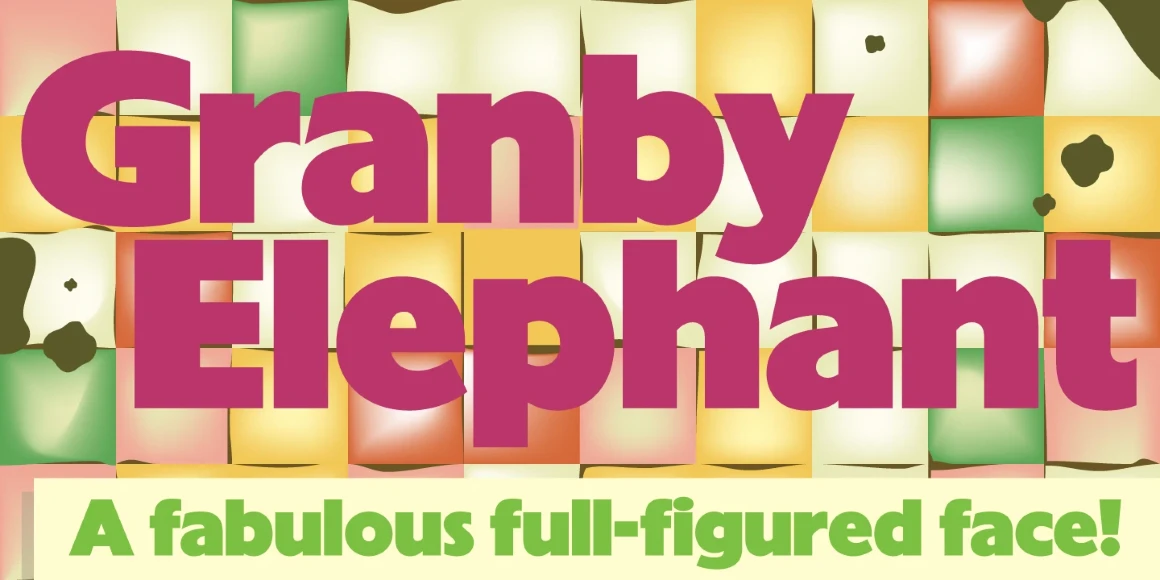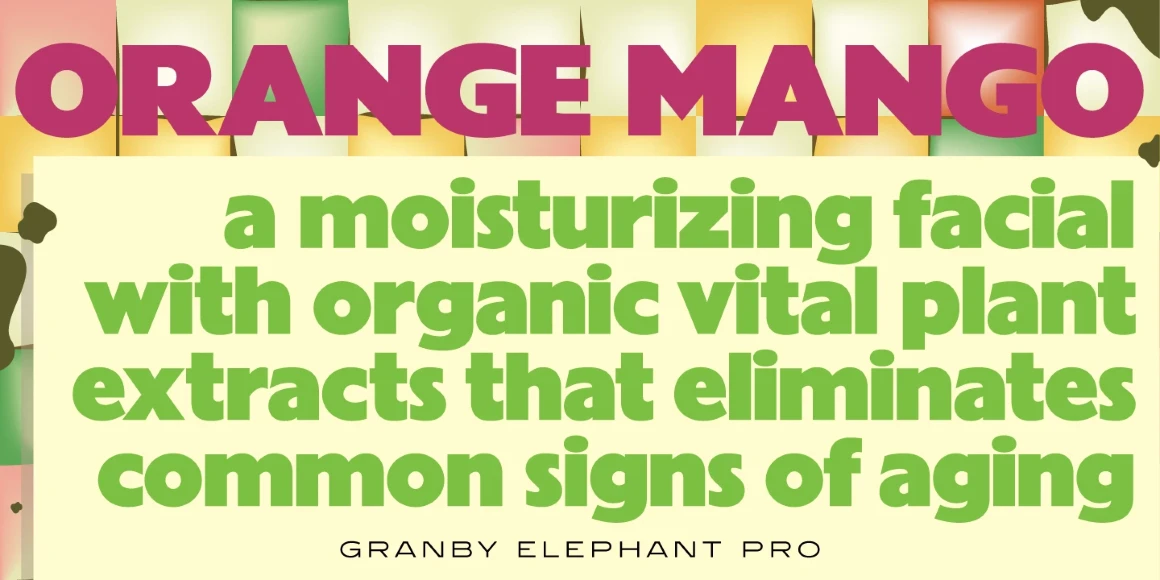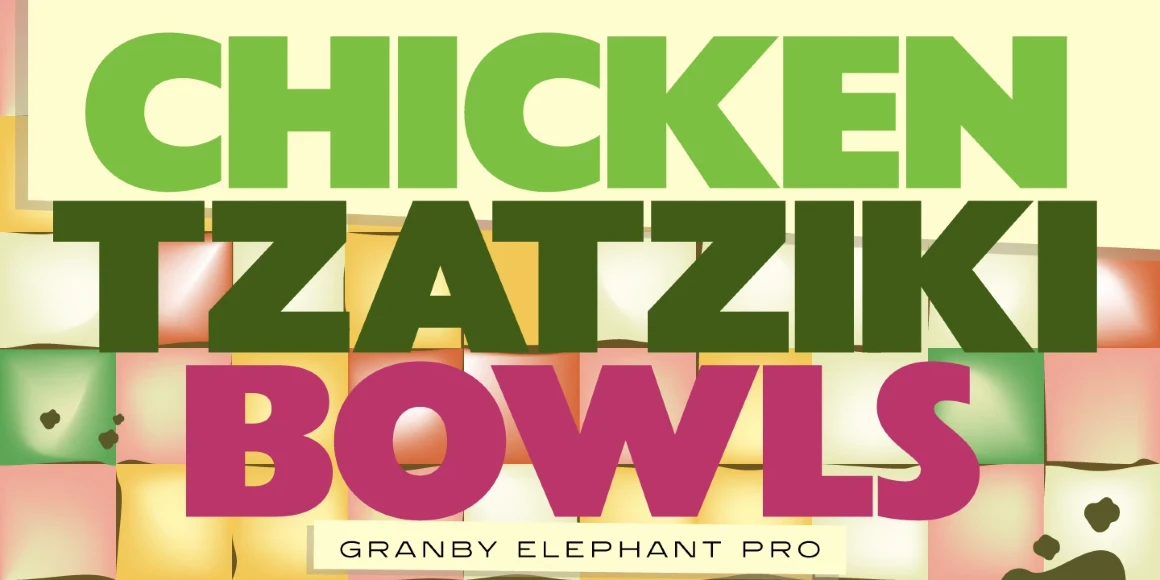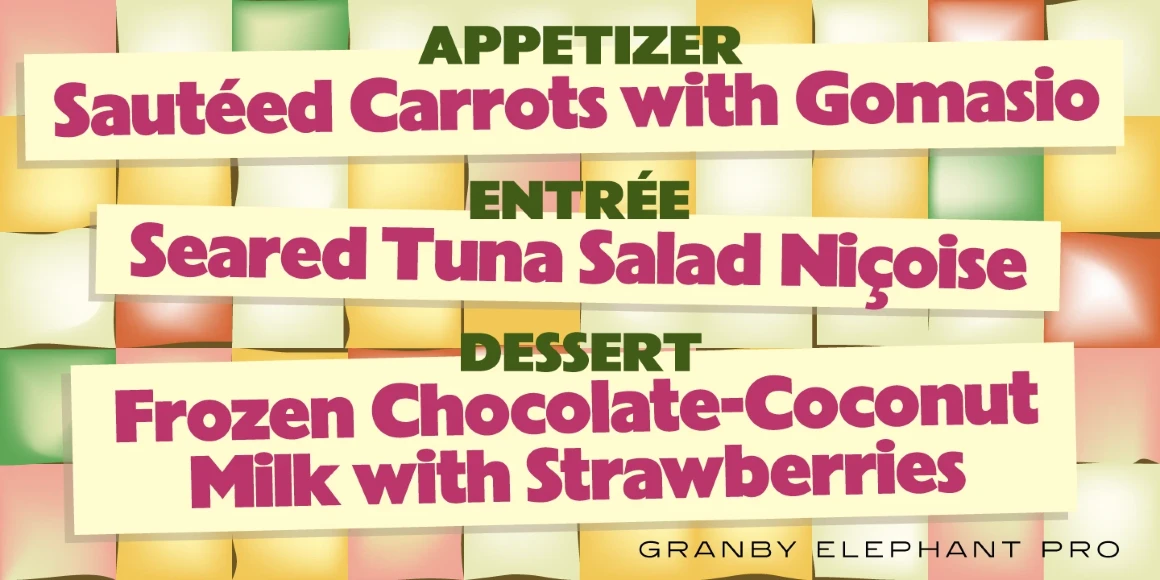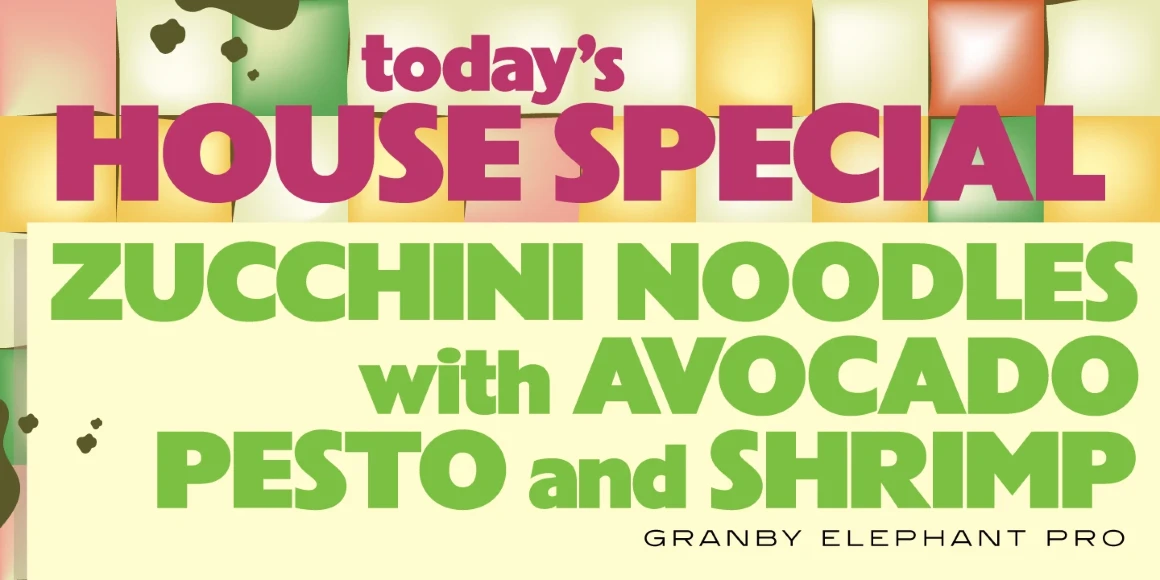
Granby Elephant
The Granby family of typefaces was first produced in 1930 by Stephenson Blake in Sheffield, UK. The original family included Granby Elephant as the heaviest weight. International TypeFounders, Inc. acquired exclusive licensing rights to the SB Collection in 1991, and Granby Elephant was developed in 2011 by Steve Jackaman (ITF) and Ashley Muir for the Red Rooster Collection. Granby Elephant is bold, sturdy, and powerful at display and subhead size.